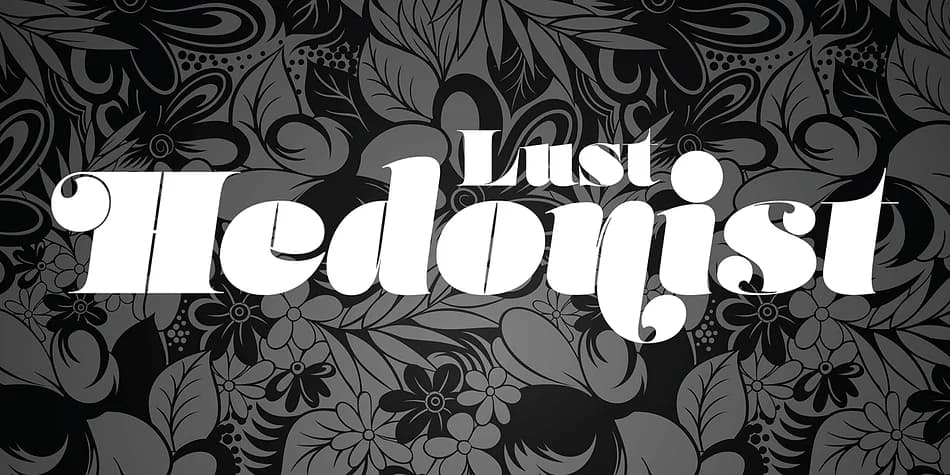
This typeface refuses to whisper. Lust Hedonist by Positype is a decorative font that celebrates dramatic contrast, where thick and thin letterforms coexist in calculated balance that somehow feels disciplined rather than chaotic.
The Script style especially demonstrates the design's philosophy. The curves reference physical form and human sensuality without becoming gratuitous. There's precision underneath the boldness. What makes it work is the restraint: every weight shift serves the overall letterform rather than chasing novelty. You'll want this for wedding invitation suites that break from convention, luxury perfume box labels that command shelf presence, high-end fashion lookbooks with attitude, and boutique cosmetics packaging for brands that refuse to play it safe. The extensive character set and multiple weight options support flexible composition across different scales and hierarchies.
The real strength here is how the design balances excess and restraint. The letterforms feel sensual and unapologetic, yet never overreach. Pair Lust Hedonist with a clean, minimal sans-serif for body text and supporting information, giving the decorative letters room to breathe. Grab it on Creative Fabrica and bring that distinctive, uncompromising presence to your next premium brand work.
Lust Hedonist Font is a decorative font that shines as a display or heading face. Pair it with a clean sans-serif or serif font for body text β the contrast creates a clear hierarchy while the two styles stay balanced and easy to read.